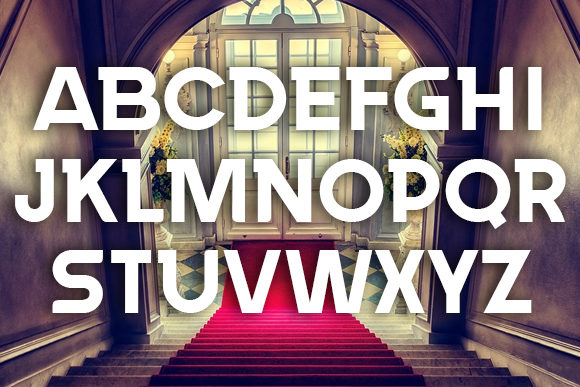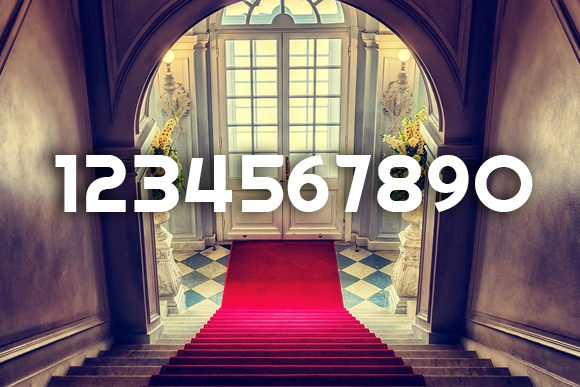
Introduction to Patrician Font
Patrician is a cool and retro display font.
It is perfect for any branding project such as logos, t-shirt printing, creative products, or pretty much anything that could benefit from an assertive vibe .
Patrician Font offers exceptional quality and versatility, making it a valuable addition to your design toolkit. Whether you’re creating for personal projects or commercial use, Patrician Font delivers professional results.